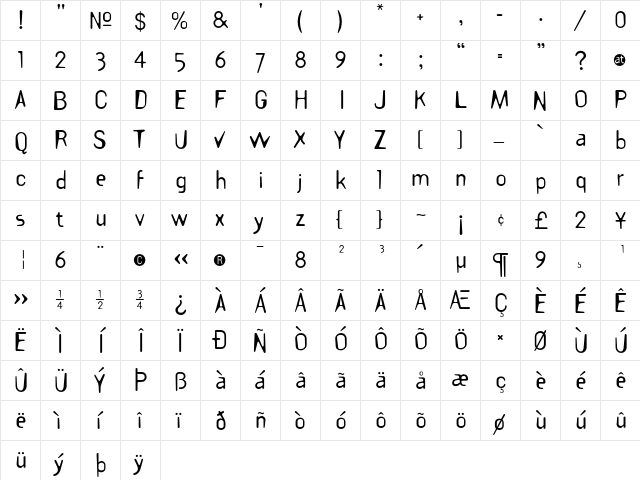
KubotaFont Roman
Design Context for KubotaFont Typeface
KubotaFont is a composed and adaptable typeface that performs quietly and consistently across a wide range of design contexts.